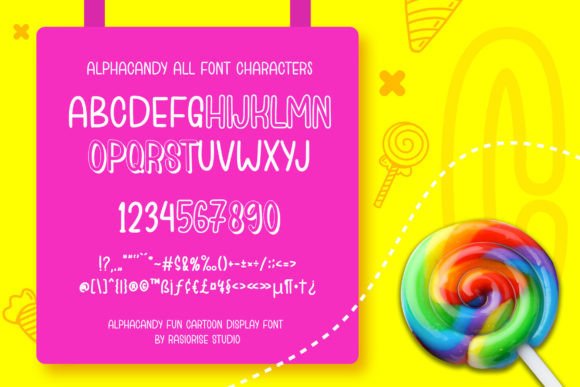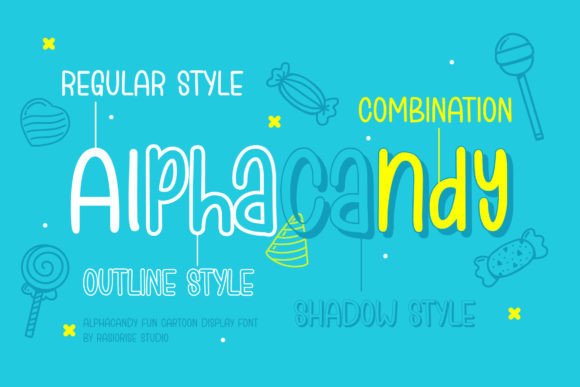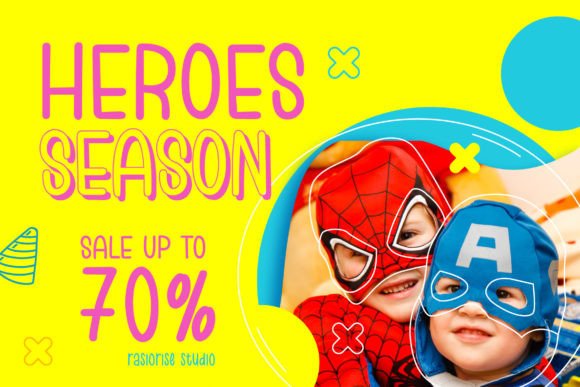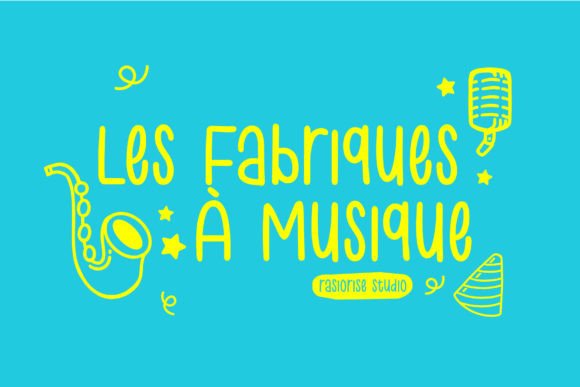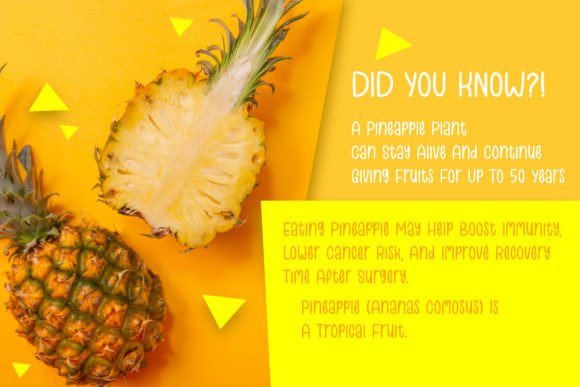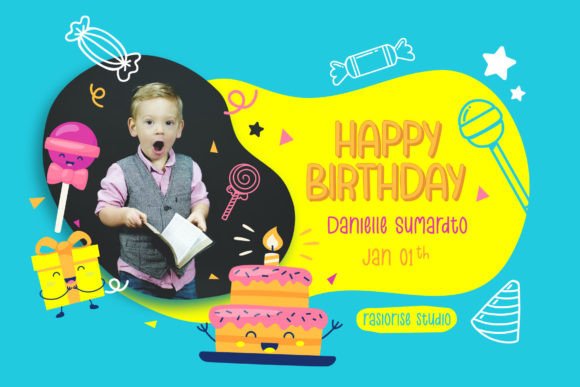
Discover the Sweetness of Alpha Candy Font
Do you remember the thrill of creating your first handmade card or poster as a child? The excitement of choosing the perfect colors, combining textures, and adding a dash of personality to make it truly special? For designers, that feeling never really goes away – and with the right tools, it can be harnessed to create truly magical designs.
Enter Alpha Candy Font, a delightful new addition to the world of typography. This playful, cartoon-inspired font is designed to bring a touch of whimsy and fun to your designs, with three versatile variants – Regular, Monoline, and Shadow – to suit every creative need. Whether you’re working on a children’s book, a food blog, or a marketing campaign, Alpha Candy Font is the perfect companion to help you add a sprinkle of sweetness to your work.
Alpha Candy Font Key Features
- Font Family: Alpha Candy is a unique, hand-drawn sans-serif font family designed to evoke a sense of playfulness and whimsy.
- Font Size: Available in 6 weights, ranging from Thin to Black, providing flexibility for various design applications and visual effects.
- Resolution: Optimized for high-resolution displays, with clear and crisp letterforms at resolutions up to 300 DPI.
- Unique Characteristics: Alpha Candy features custom-designed letterforms, intricate details, and a distinctive ‘hand-crafted’ feel, making it ideal for creative and artistic projects.
Designer Review: Alpha Candy Font
Alpha Candy Font is an interesting and unique typeface that could add some personality to your designs. ✨ Here are some things that work well:
- It has a playful and whimsical feel, perfect for projects that need a touch of fun and imagination.
- The font is highly customizable, allowing you to adjust the size, color, and style to suit your needs.
- It’s a great choice for social media graphics, blog posts, and other digital content where a friendly and approachable tone is desired.
- The font may not be suitable for formal or professional projects, as it can come across as too casual or childish.
- The character set is limited, which may make it difficult to use for languages that require a large number of characters.
- The font may not render well in certain contexts, such as at very small sizes or in low-resolution environments.
Overall, I think Alpha Candy Font is a fun and versatile typeface that can add a lot of personality to your designs. However, it’s not a one-size-fits-all solution, and you’ll need to consider the specific needs of your project before deciding whether to use it.
Alpha Candy Font is ideal for use in: social media graphics, logo designs, and packaging labels.
For best results, use the font in bold or italic styles to add emphasis and create visual interest.
Pacifico is a beautiful, elegant script font that is perfect for creating a sophisticated and luxurious look. It is ideal for use in branding, packaging, and editorial design. Pacifico has a similar elegant feel to Alpha Candy Font but with a more refined and sophisticated appearance.
Cinzel Font
Cinzel is a modern, elegant script font that is perfect for creating a sophisticated and creative look. It is ideal for use in branding, advertising, and editorial design. Cinzel has a similar cursive feel to Alpha Candy Font but with a more dynamic and expressive appearance.